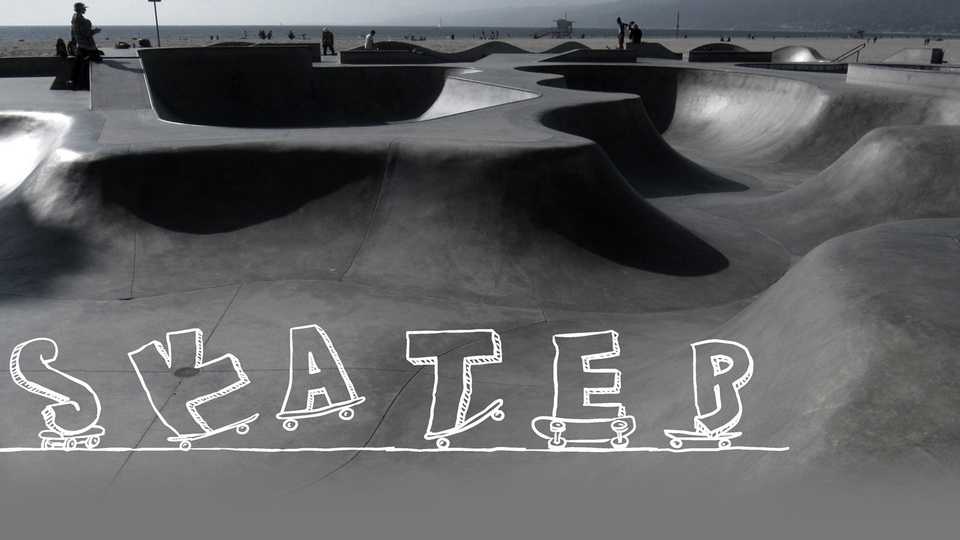
Download SkateR Initials font, a hand lettered typeface out of the animated alphabet performing skateboard tricks. SkateR Initials is probably best used for initials.